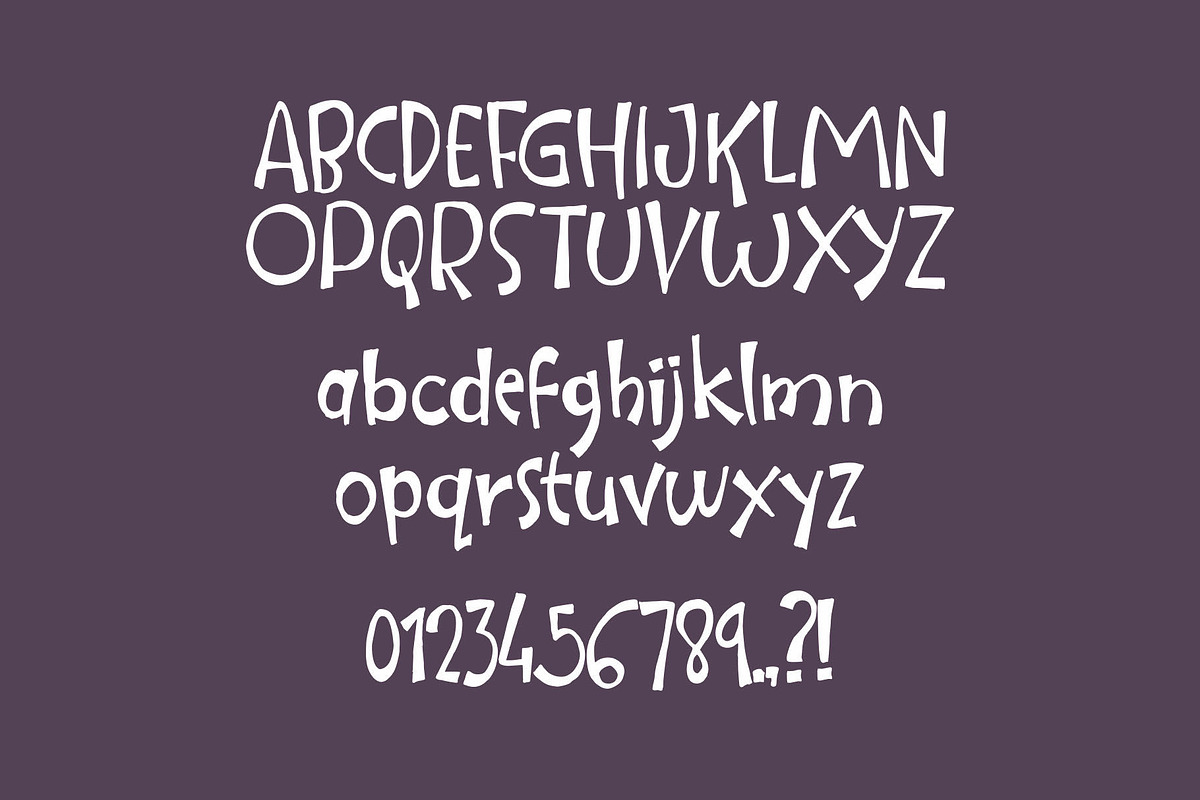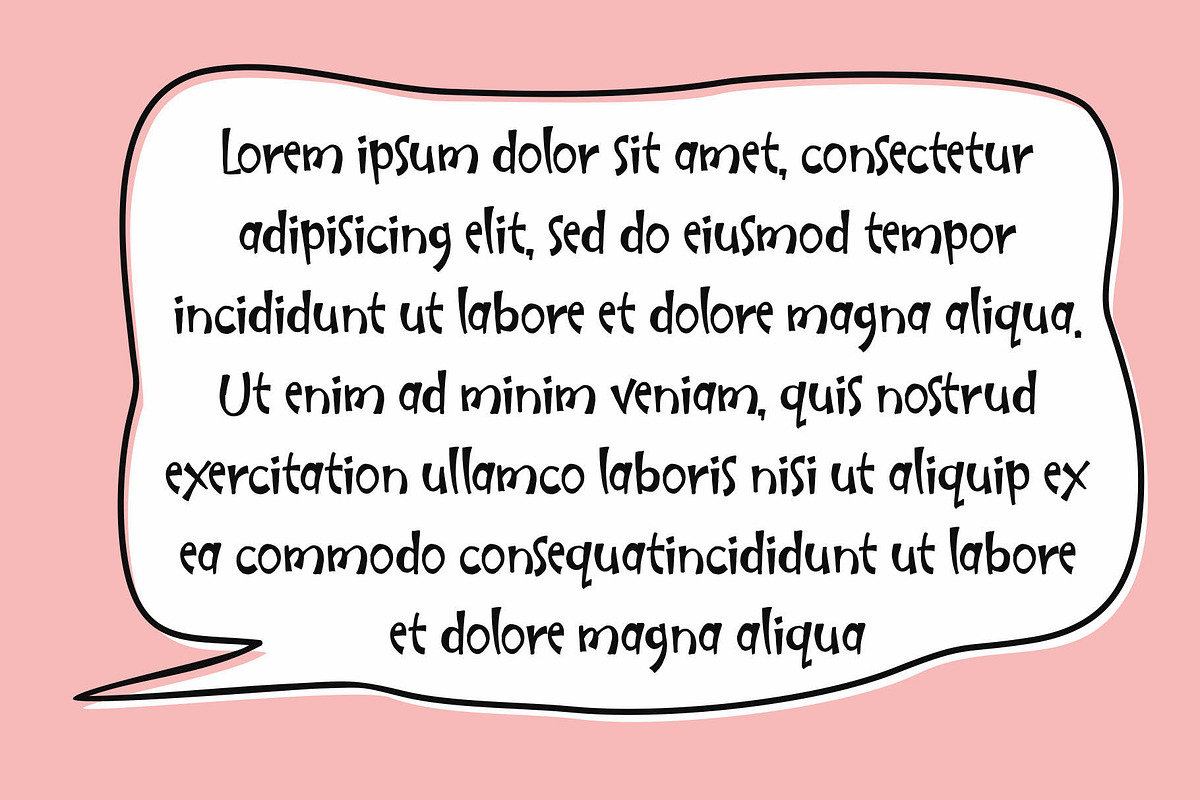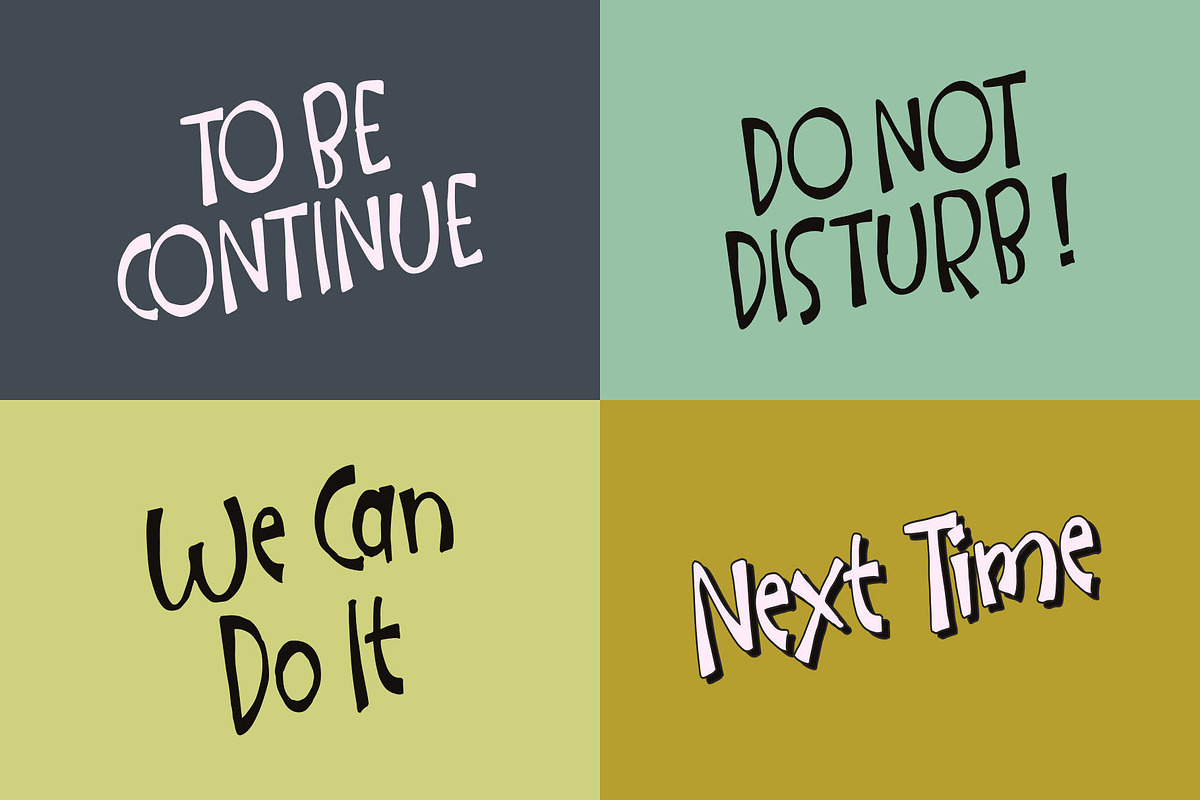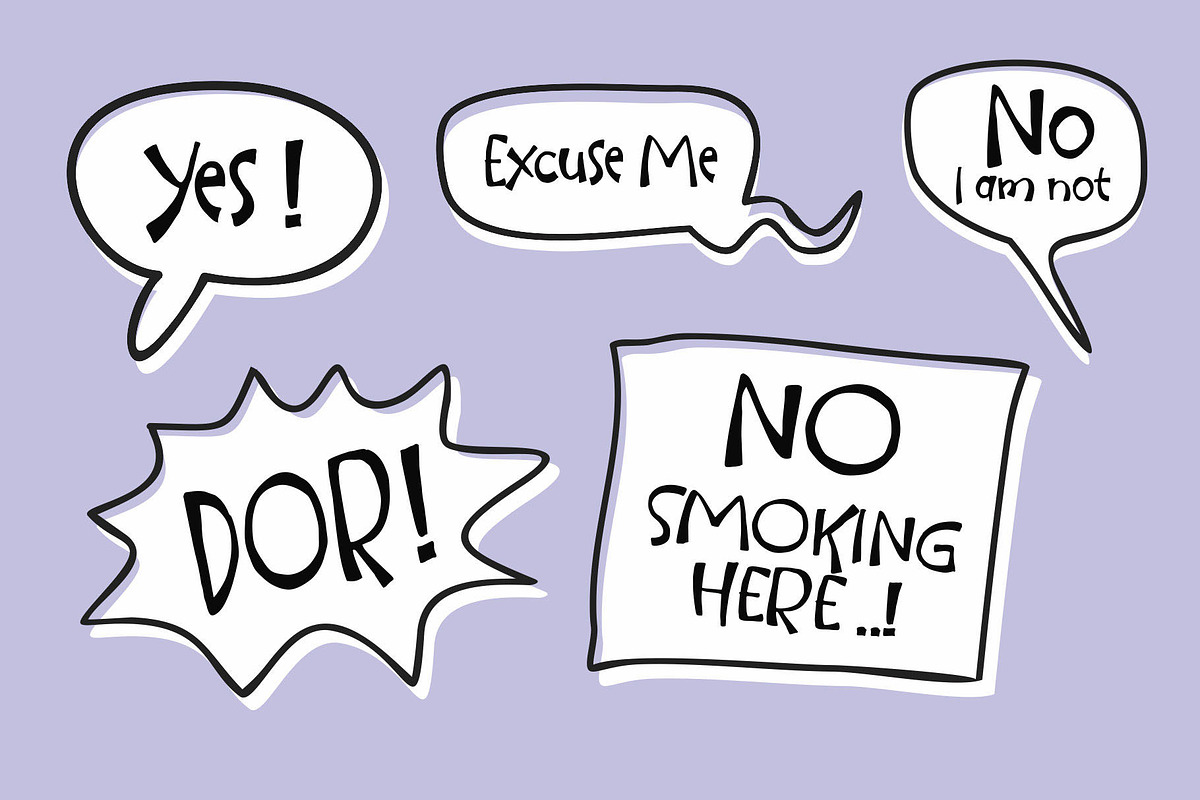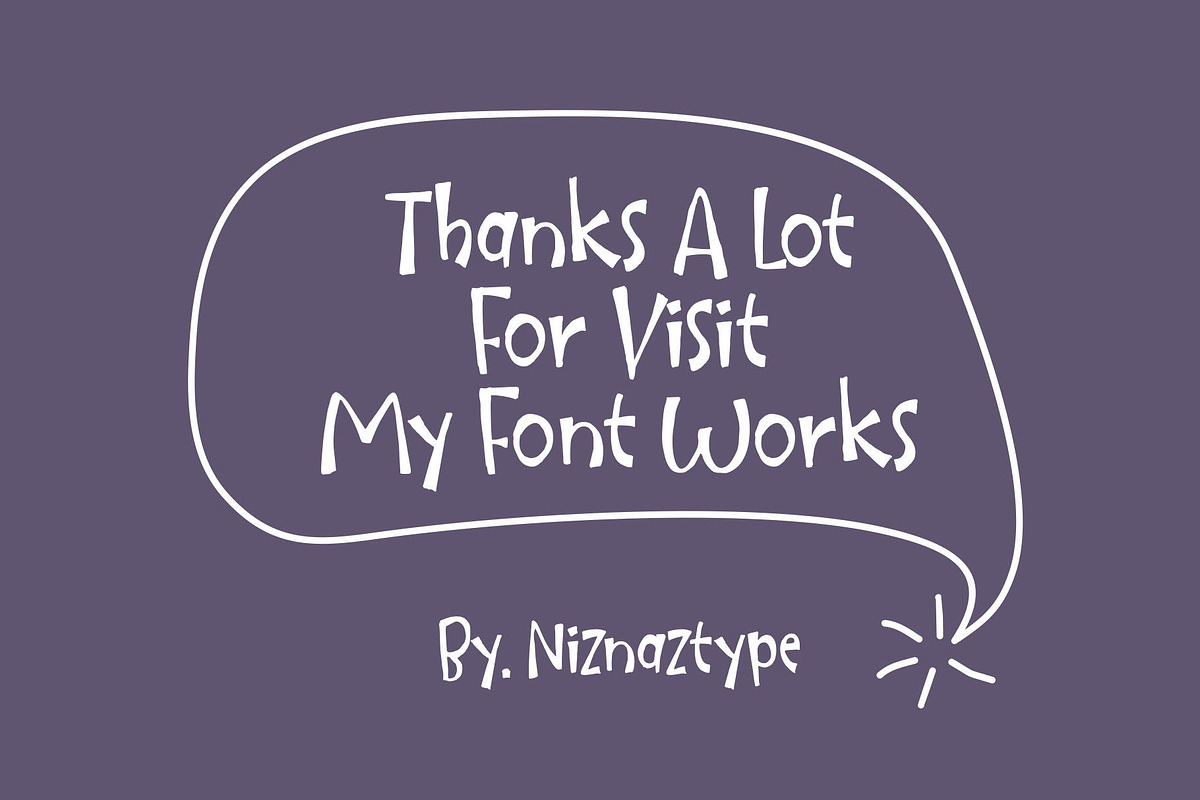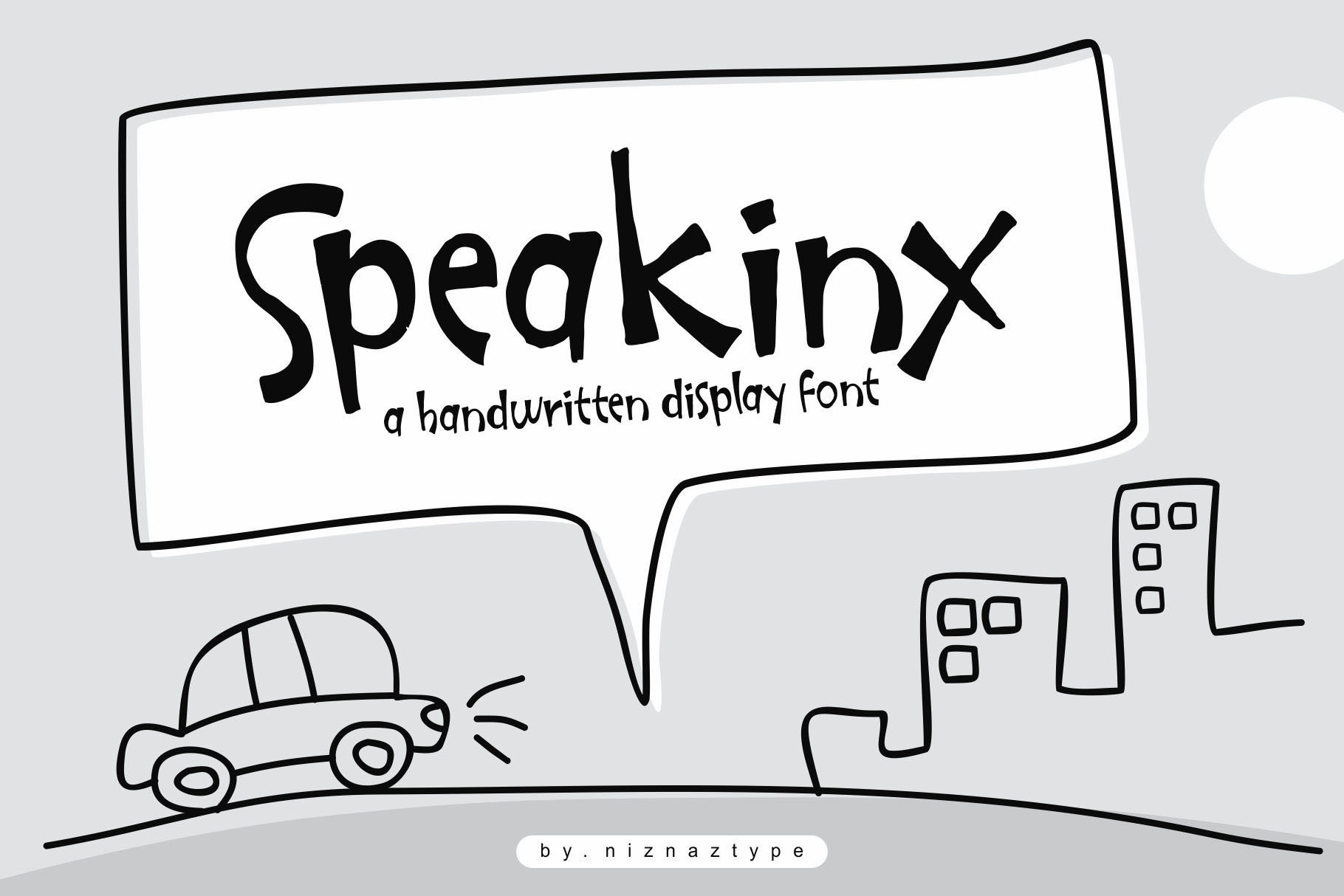
Speakinx - A Handwritten Typeface
Speakinx is a handwritten typeface technique. This font have a style as a comic typing. Cute, simple and fun. Speakinx is very suitable to used as a comic lettering, headline, tittle or ballon text. The design themes like illustration lettering, comic lettering, handwritten concept, handdrawing design or children design very comfortable to use this font to reach the better quality. Speakinx saved in three formats TTF OTF and WOFF Please, enjoy it with my this font product. Thank a lot